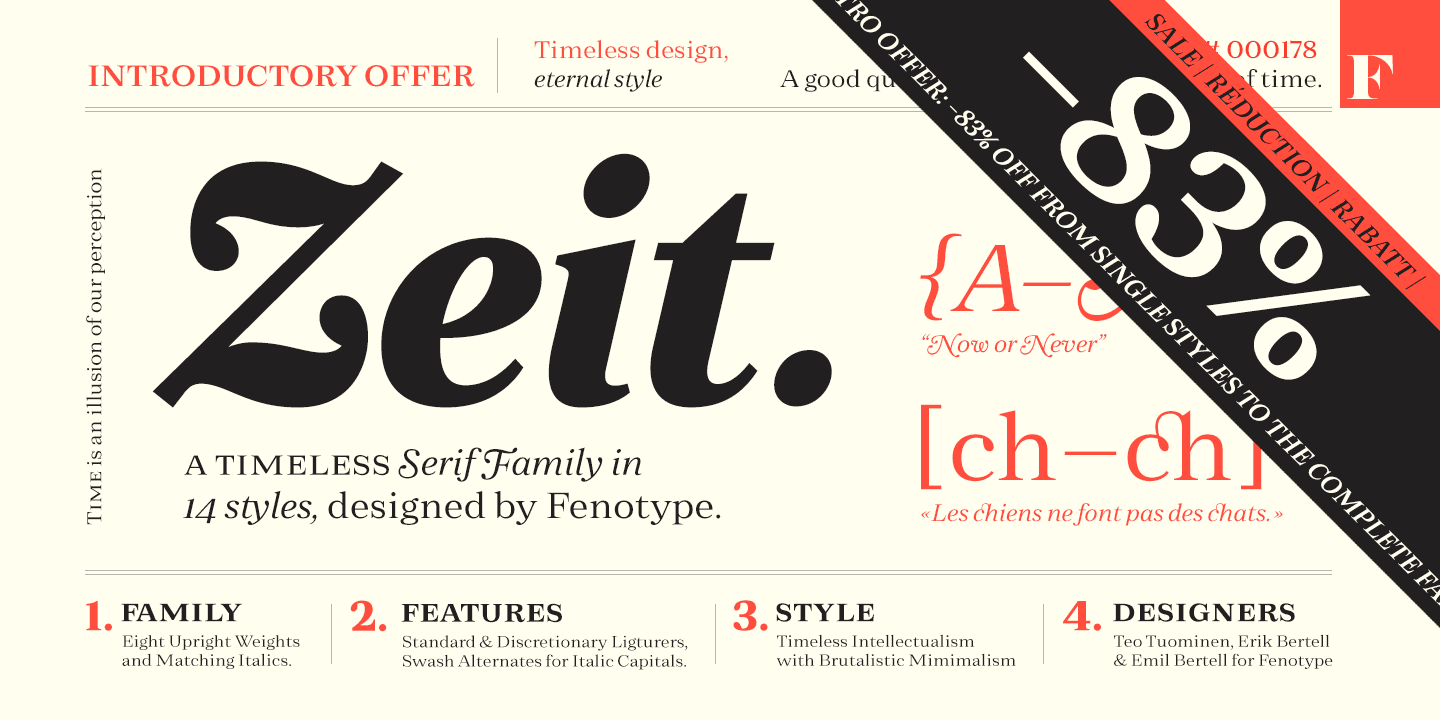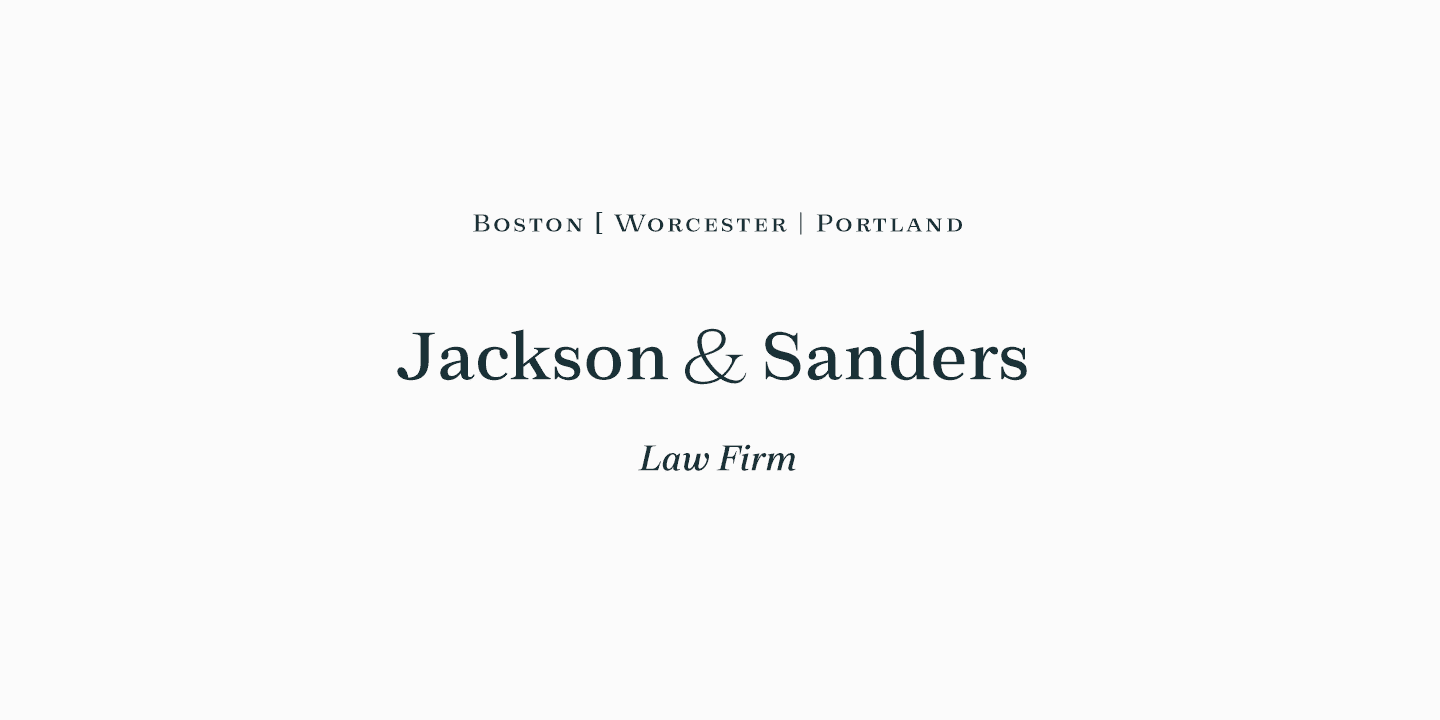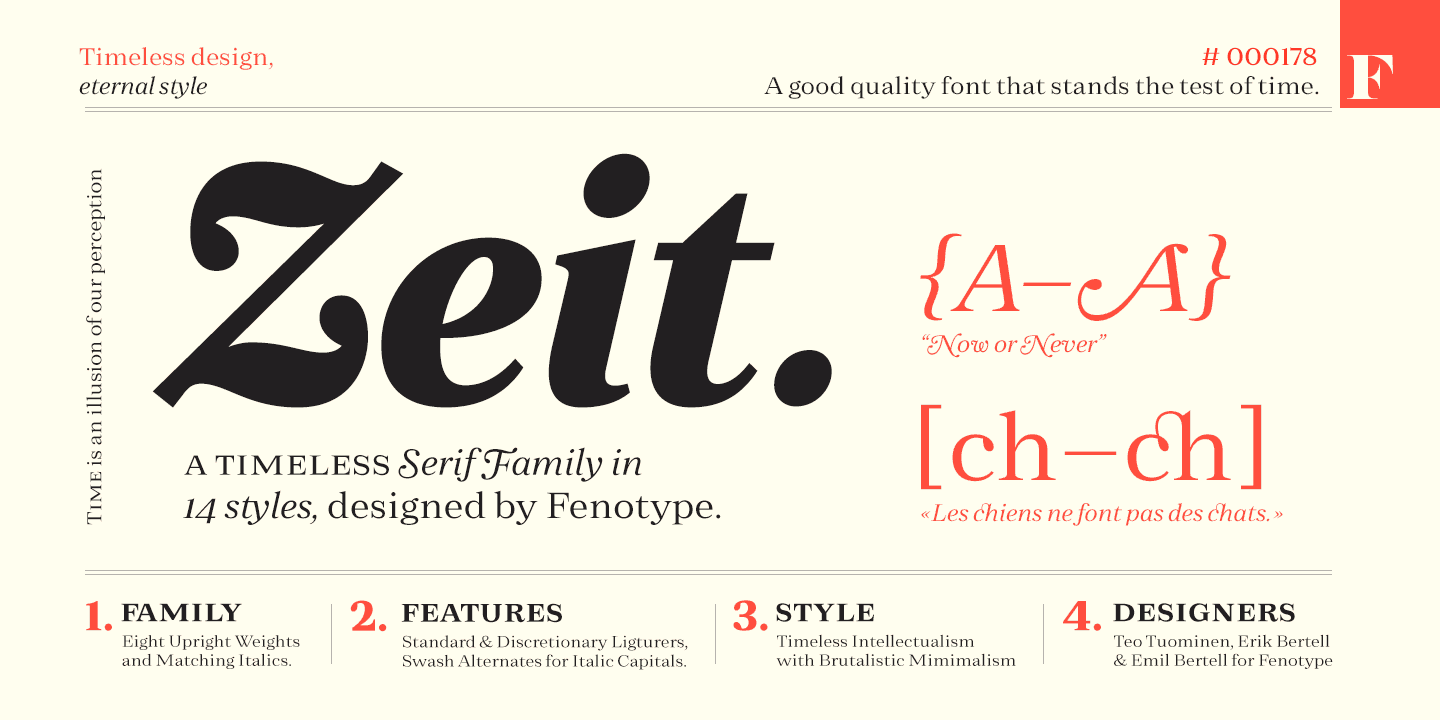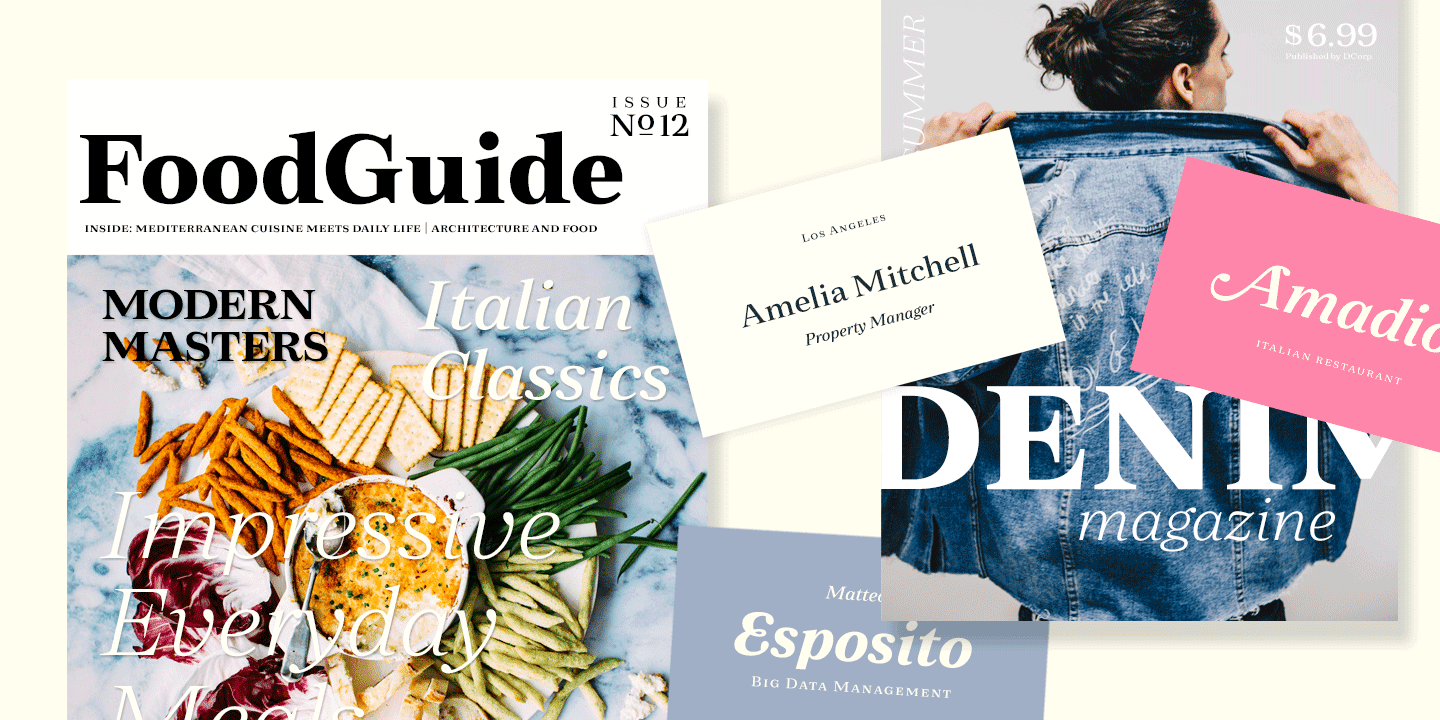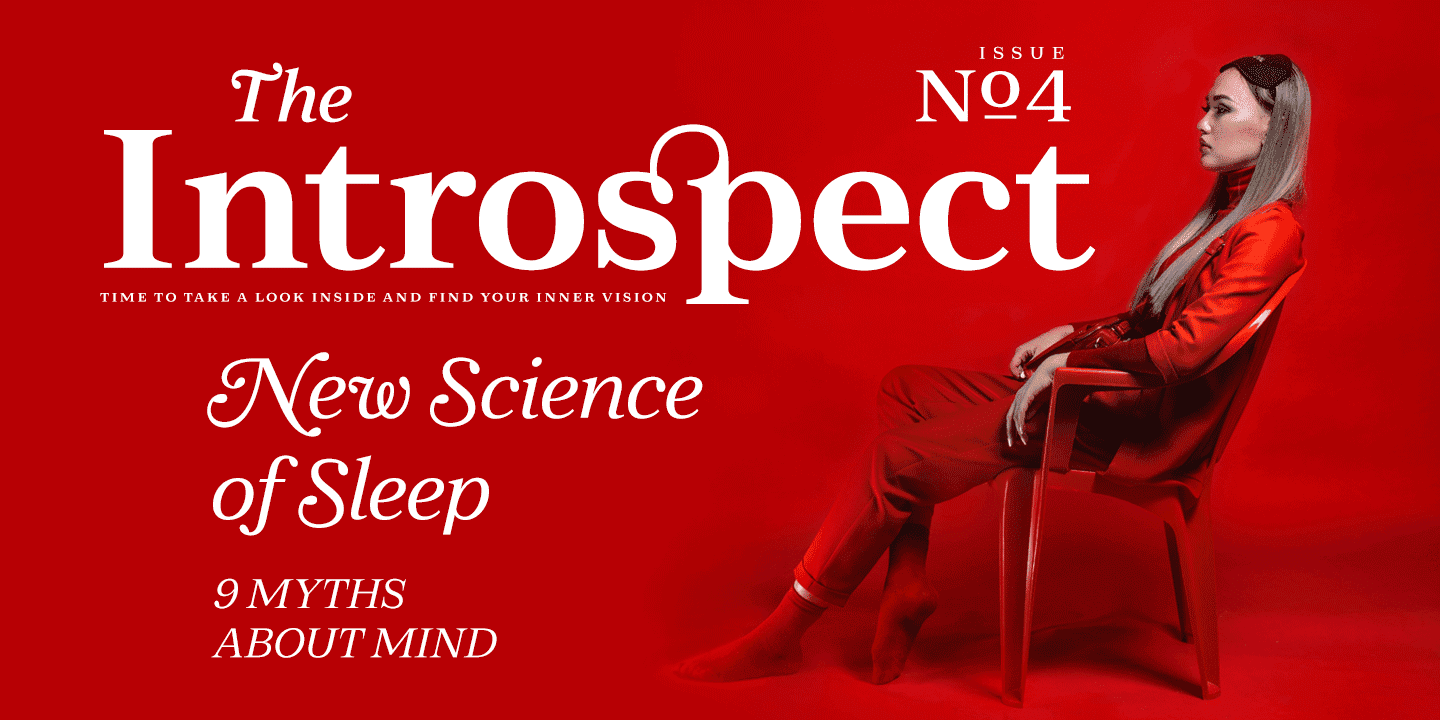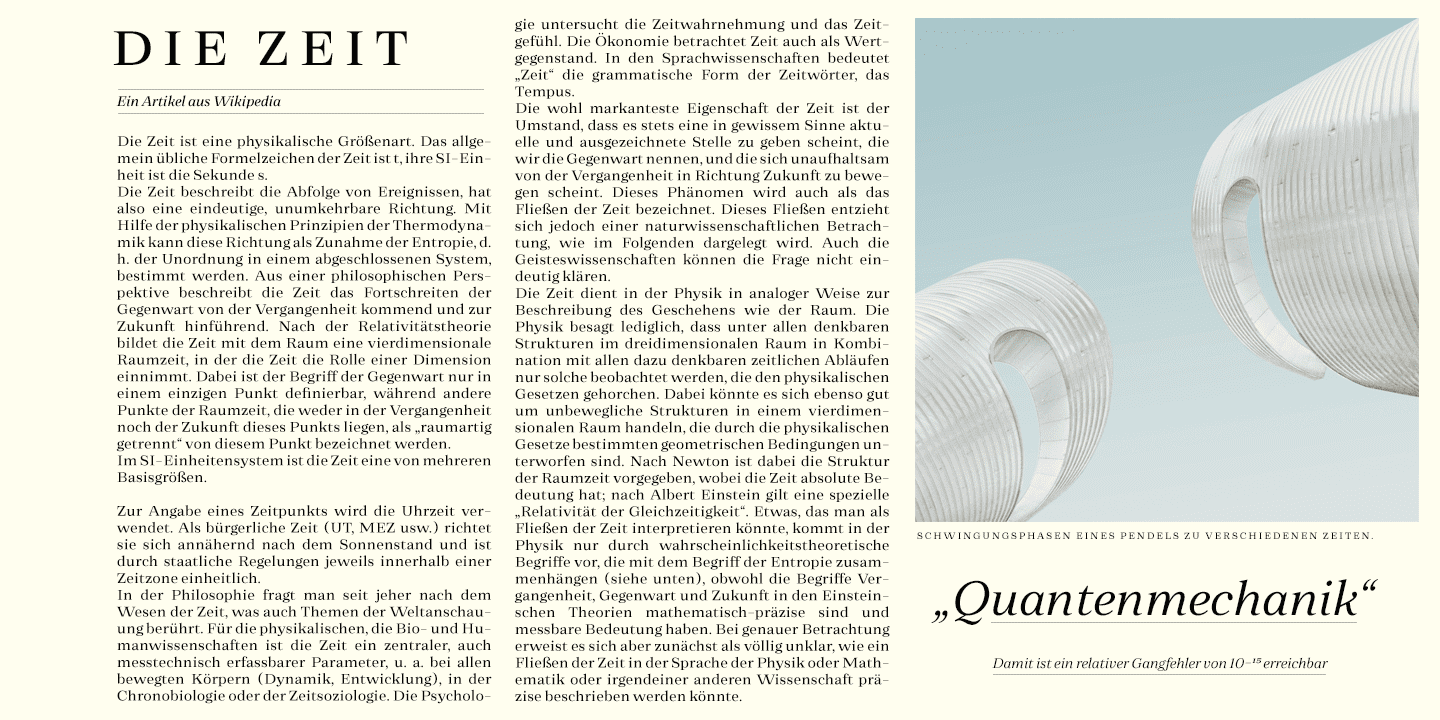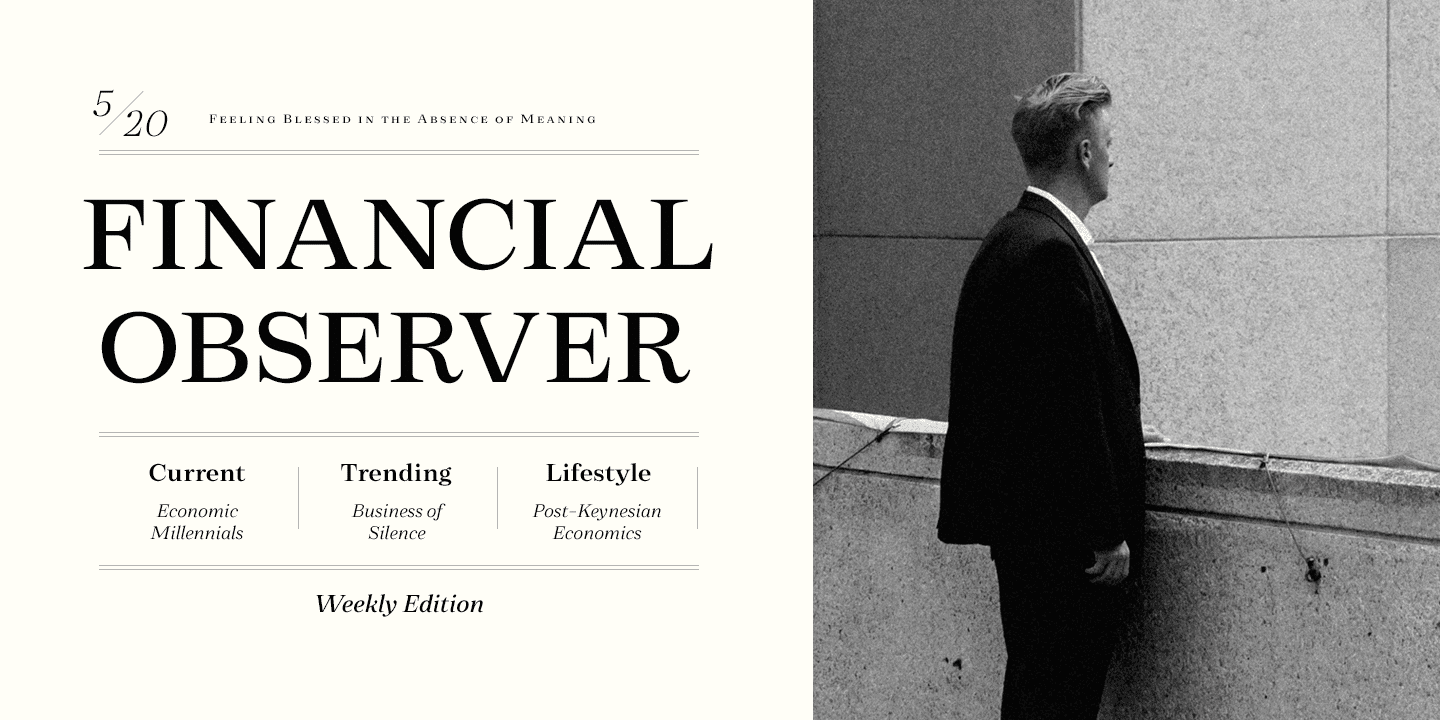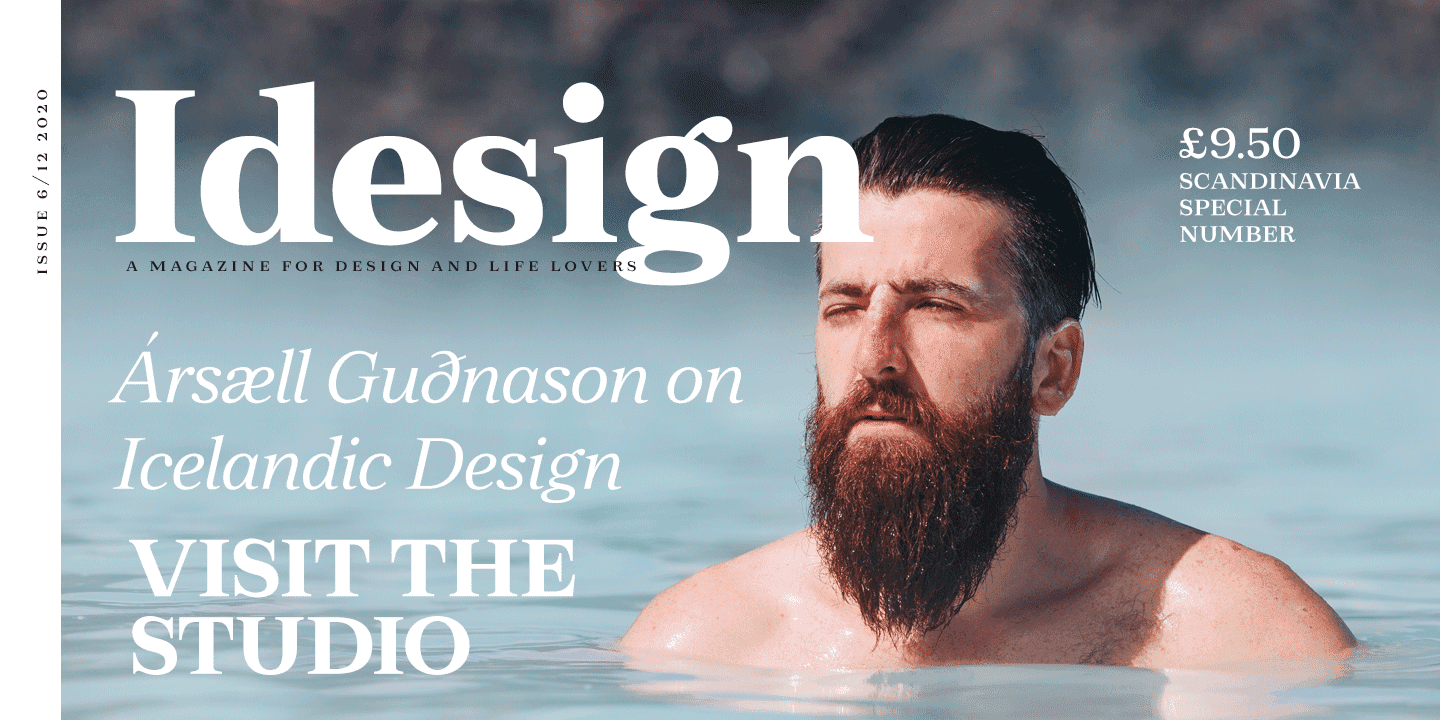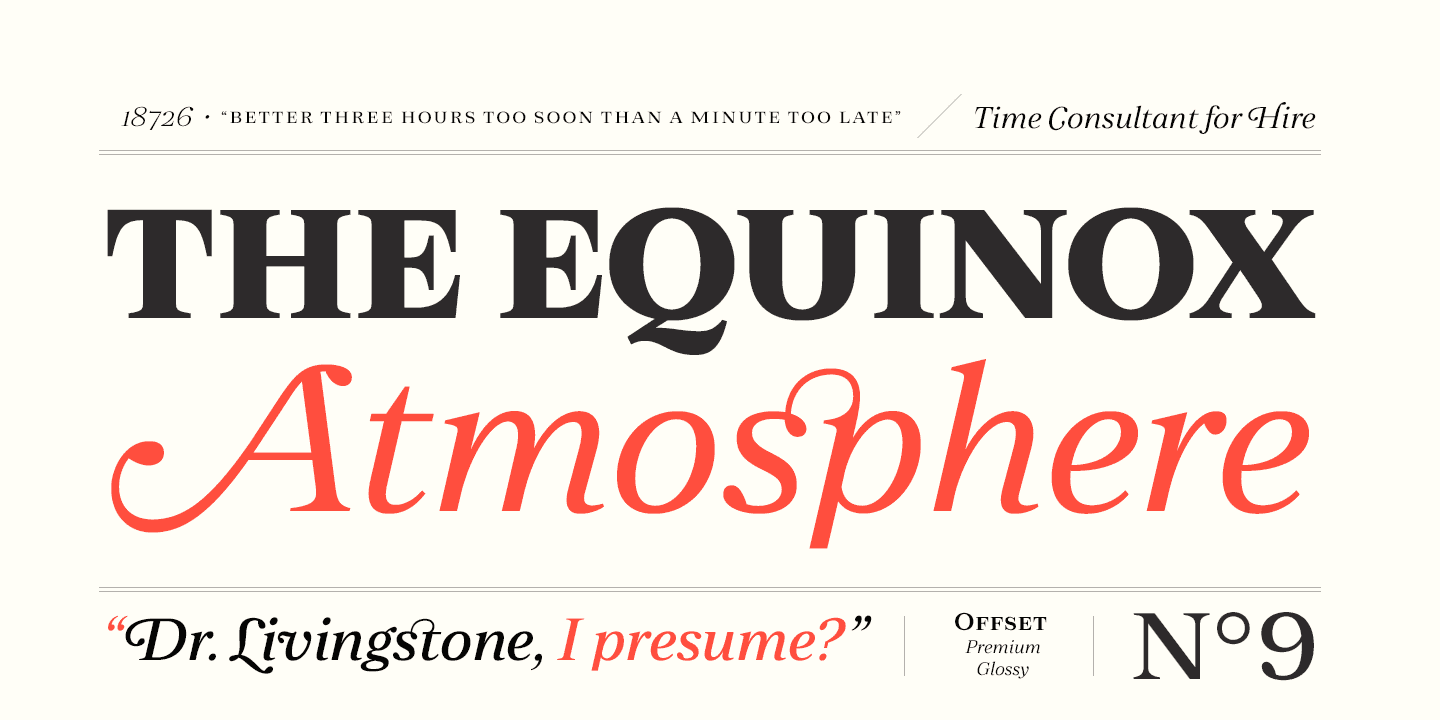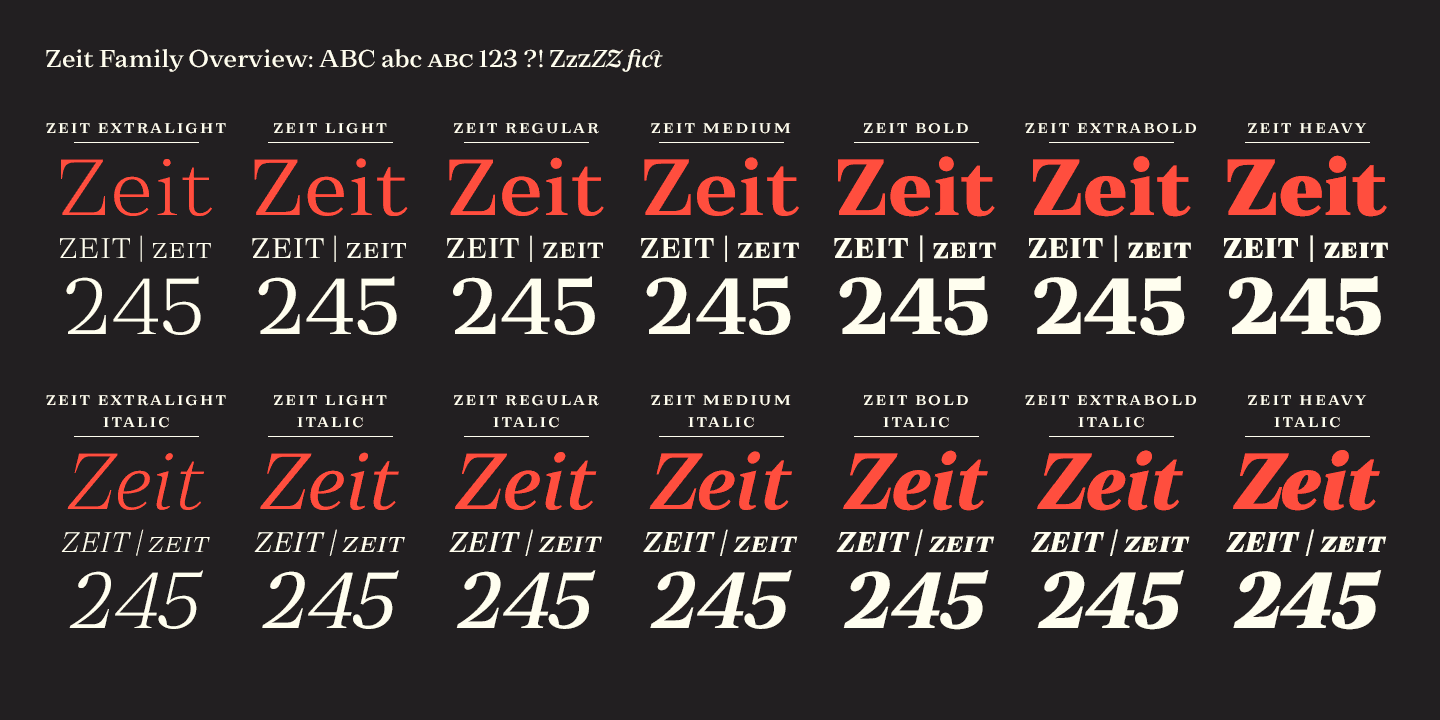
Zeit Family (14 fonts)
The font family is equipped with many handy and carefully thought features. Small capitals and small capital figures, old style figures, subscript and superscript figures and fractions are intrinsic to the design. For a bit of flare, look for the swash alternates included in the italics - along with variants of the characters g and y.
Look no further, Zeit is rigorously designed from head to toe-as only true quality can stand the test of time.